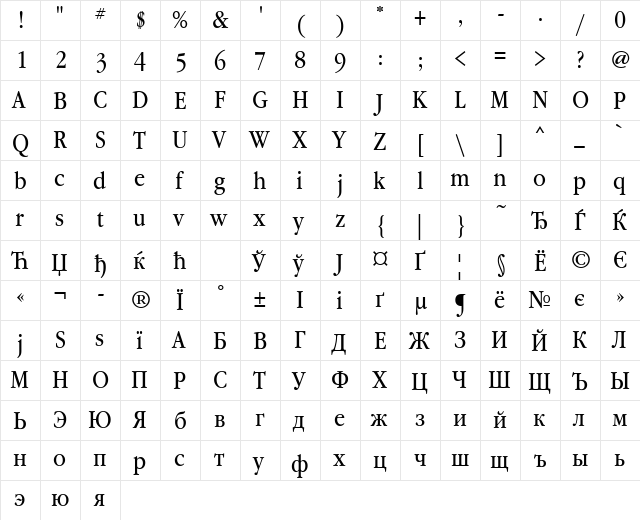
GaramondBookNarrowCTT Regular Font Preview
GaramondBookNarrowCTT Regular
Design Context for GaramondBookNarrowCTT Typeface
GaramondBookNarrowCTT takes a measured approach to typography — its balanced proportions and neutral character make it a reliable workhorse for both digital and print work. Its narrow stance lets it pack a punch even in space-constrained designs.